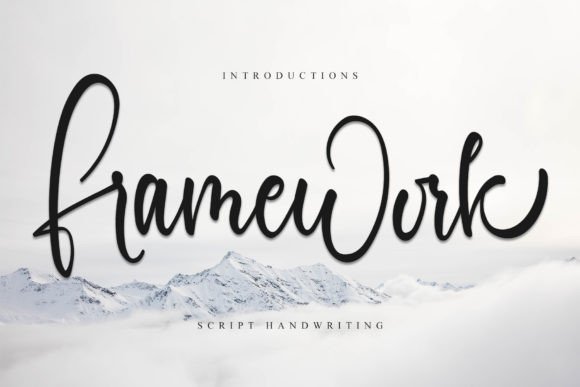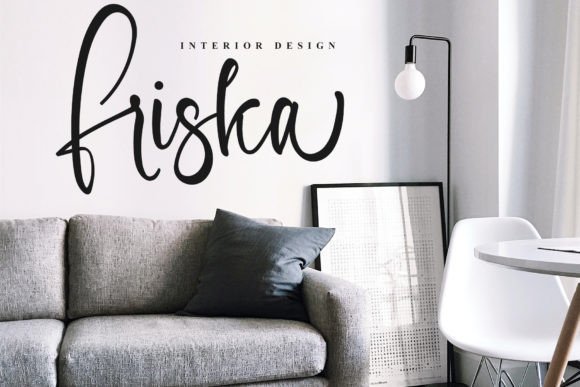
Framework Font
Framework Font Download – Stylish Elegant Handwritten Script
The Framework Font download is a stylish handwritten script inspired by timeless calligraphy. With its graceful strokes and contemporary balance, this typeface brings sophistication and beauty to a wide range of creative projects. Whether you’re designing invitations, logos, or posters, Framework ensures your work looks polished and professional.
A Calligraphy-Inspired Handwritten Style
The Framework Font download combines the elegance of classic calligraphy with the freshness of modern design. Its smooth curves and consistent letterforms create a refined script that feels both timeless and versatile.
The Framework Font download is ideal for event stationery, greeting cards, and wedding invitations. Its elegant flow adds romance and refinement, ensuring your designs stand out with charm and personality.
Great for Logos and Branding
Typography plays a key role in branding, and the Framework Font download is an excellent choice for logos, packaging, and promotional materials. Its stylish handwritten strokes communicate creativity and trust, making it perfect for boutique and lifestyle brands.
Versatile for Digital and Print Projects
From posters and banners to social media graphics and editorial layouts, the Framework Font download adapts effortlessly across platforms. Its balance of style and readability makes it a reliable typeface for both digital and print designs.
Readability with Contemporary Elegance
Unlike overly decorative fonts, the Framework Font download maintains excellent legibility. Its neat and balanced letterforms allow for use in both large titles and smaller supporting text, ensuring flexibility without losing beauty.
Why Choose Framework Font?
Among handwritten fonts, the FrameworkFont download stands out with its classic inspiration and contemporary execution. It offers elegance and adaptability, making it suitable for both formal and casual design needs.
Add Style and Elegance to Your Designs
Typography influences how people perceive your work, and the FrameworkFont download helps you create designs that radiate refinement, sophistication, and creativity. Whether for invitations, branding, or posters, this font ensures your projects shine with timeless elegance.